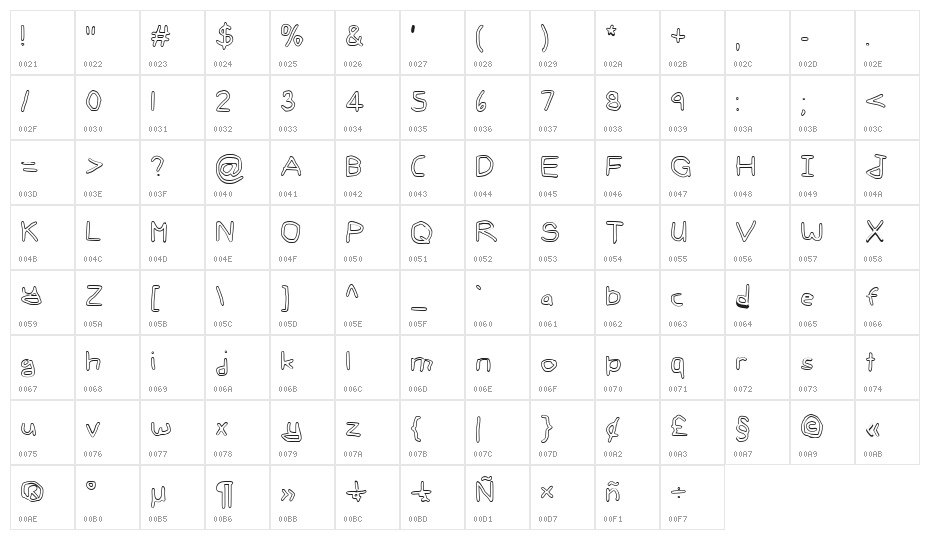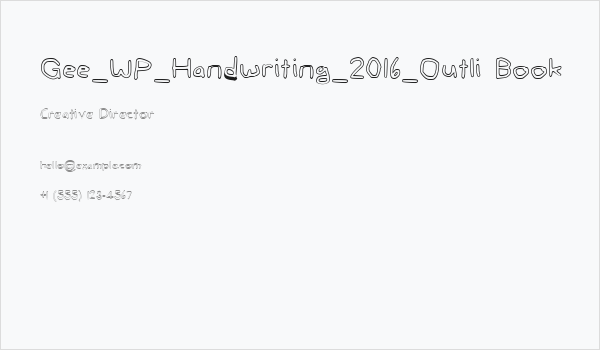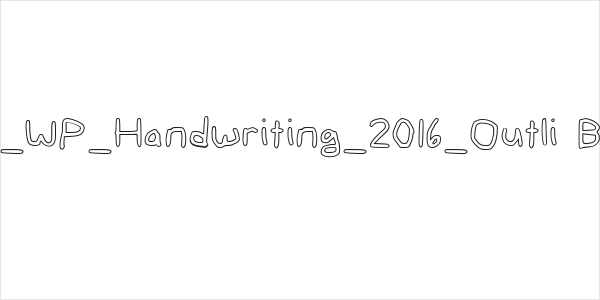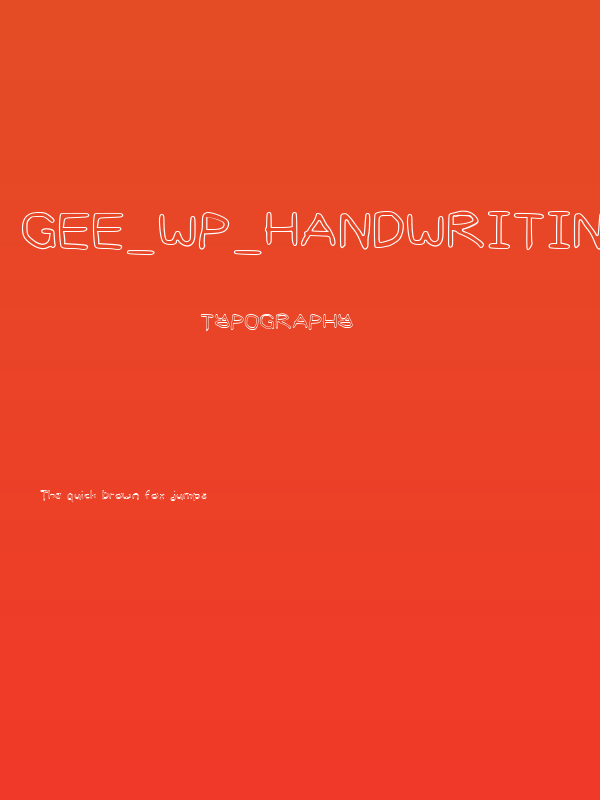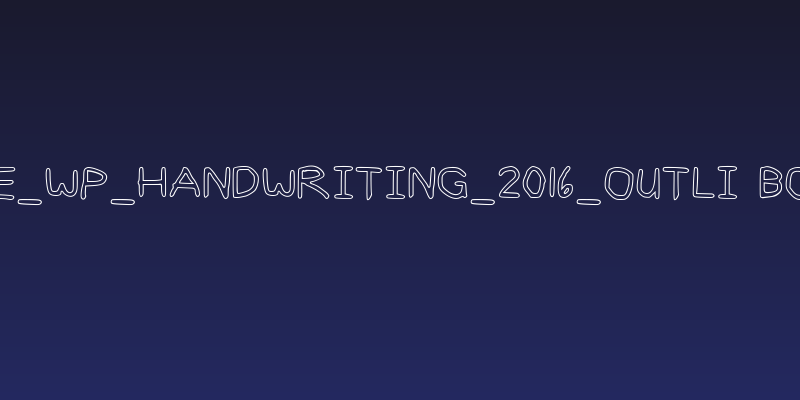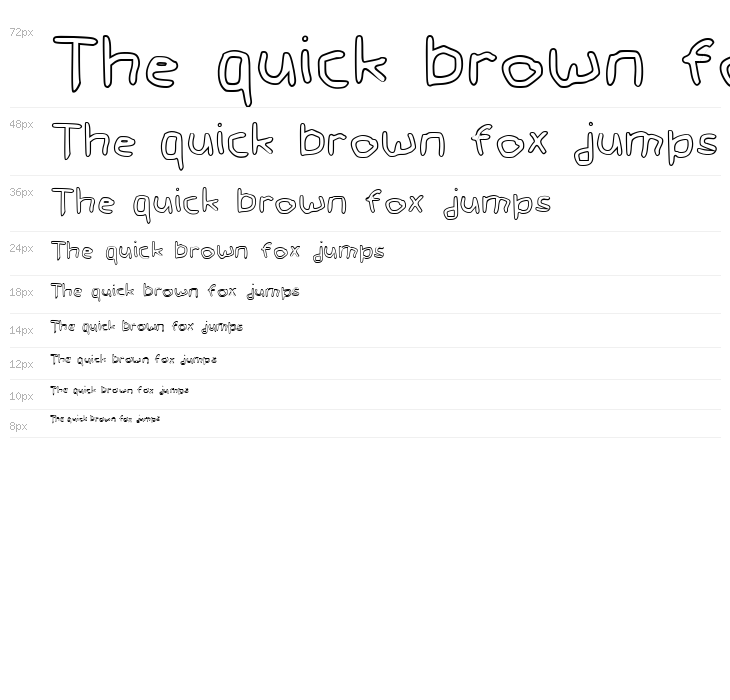
Gee_WP_Handwriting_2016_Outli Book Font
Gee_WP_Handwriting_2016_Outli Book Description
This font features a playful and casual handwritten style with an outline effect, giving it a unique and approachable appearance. The characters are slightly irregular, adding to the charm and authenticity of a hand-drawn look. The uppercase and lowercase letters maintain a consistent style, with rounded edges and a friendly demeanor. Numbers and special characters follow the same playful design, making the font versatile for various creative projects. The overall appearance is informal and artistic, suitable for designs that require a personal touch.
| Overall Style | Casual, Artistic |
| Use Case | Headlines, Creative projects, Informal designs |
| Proposed Projects | Ideal for children's books, greeting cards, creative posters, and DIY projects. |